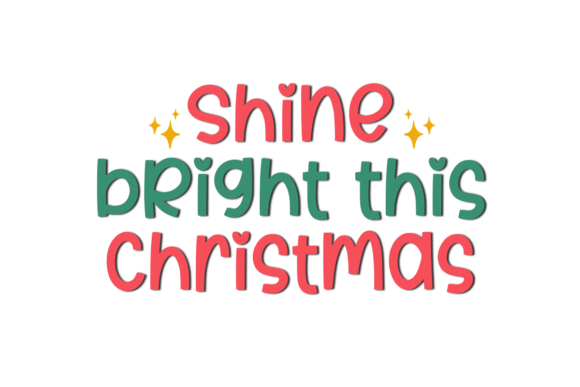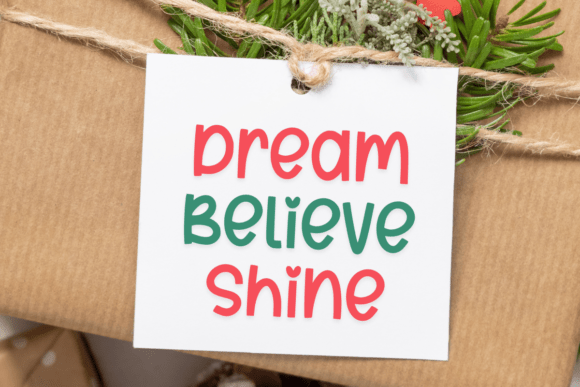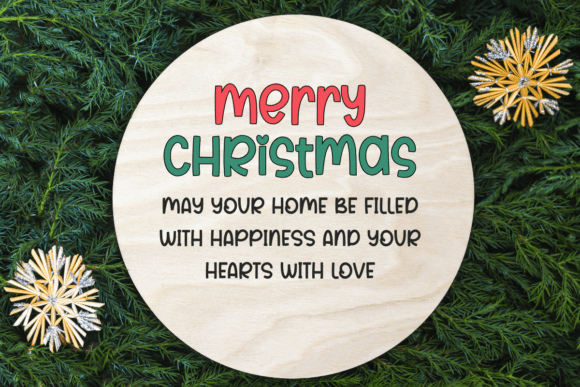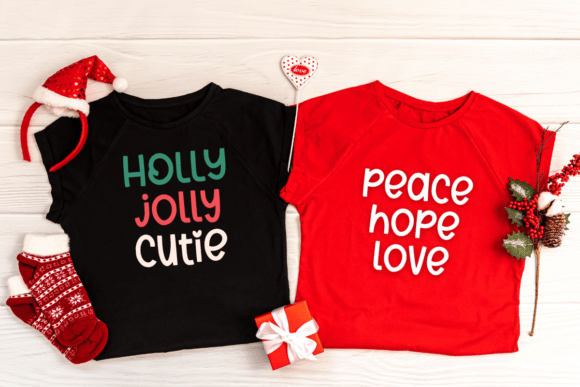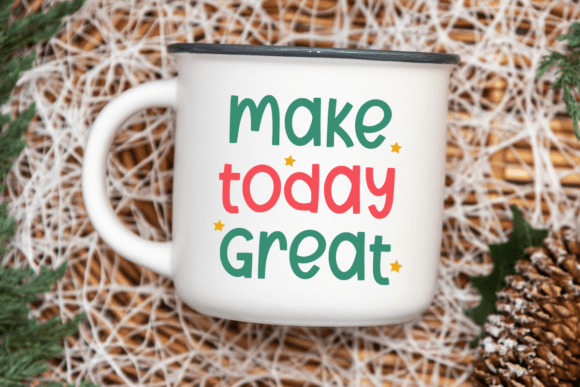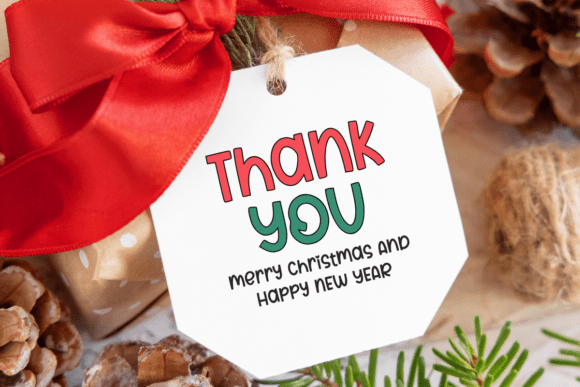
The Magic of Christmas Stocking Font: A Designer’s Delight
It’s that time of the year again – the holiday season is just around the corner, and with it comes the pressure to create stunning designs that capture the essence of Christmas. I still remember the year I was tasked with designing a Christmas card for a client’s family gathering. I spent hours scouring the internet for the perfect font, but nothing seemed quite right. That was until I stumbled upon Christmas Stocking, a joyful and playful display font that instantly brought holiday cheer to life!
• ✅ Easy to Read: Christmas Stocking is a bold, rounded font that’s perfect for headlines and titles, making it easy to read even from a distance.
• ✅ Fun Festive Details: The font comes with heart-shaped counters and twinkling accents that add a touch of magic to any design.
• ✅ Kid-Friendly: The playful and whimsical nature of Christmas Stocking makes it ideal for kid-friendly or family-focused designs.
• ✅ Full of Character: This font is full of personality, making it perfect for designs that require a bit of flair and whimsy.
A Few Quirks to Consider ⚠️
• 🤔 Limited Use Cases: While Christmas Stocking is perfect for holiday designs, it may not be the best choice for more formal or professional projects.
• 🤔 Glyph Overload: With so many fun glyphs and alternates, it can be easy to get carried away – be mindful of legibility and design balance.
The Story Behind Christmas Stocking Font
Christmas Stocking was designed by a team of creatives who wanted to capture the magic and wonder of the holiday season. Inspired by traditional Christmas decorations and the joy of childhood, they crafted a font that’s both playful and festive. The result is a font that’s perfect for adding a touch of holiday cheer to any design.
Font Name Christmas Stocking Font
Author Minimalist Eyes
Q: What makes Christmas Stocking font so special?
A: Christmas Stocking font is special because of its unique blend of bold, rounded letters and fun festive details, making it perfect for holiday designs.
Q: Is Christmas Stocking easy to read?
A: Yes, Christmas Stocking is a bold font that’s designed to be easy to read, even from a distance.